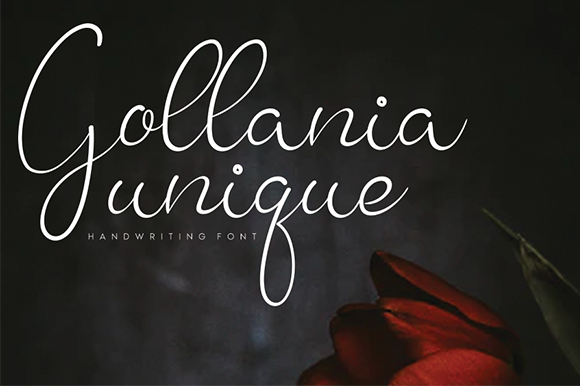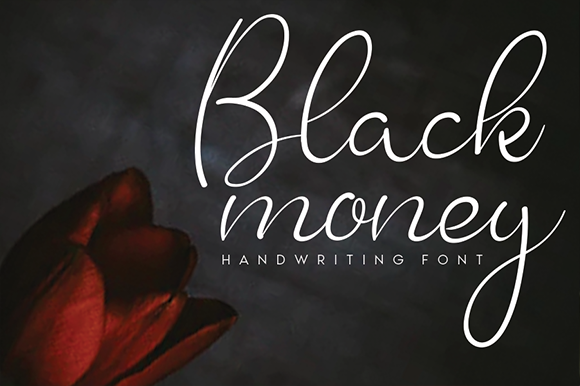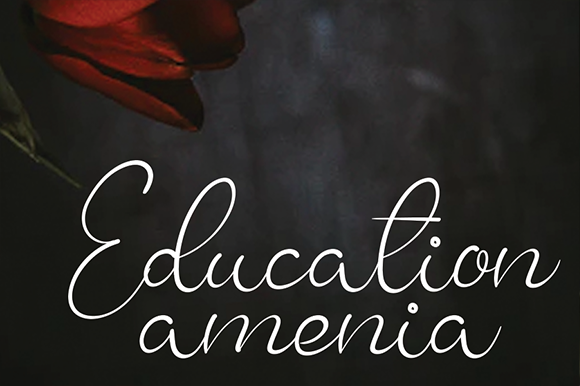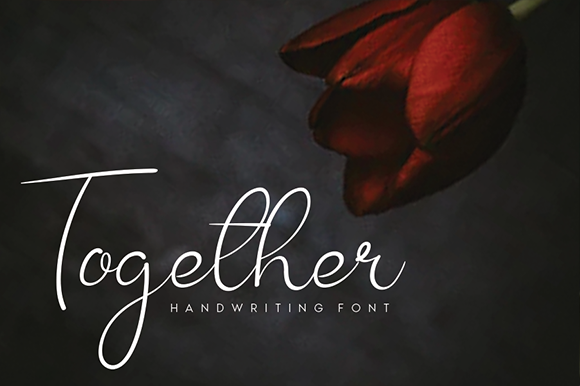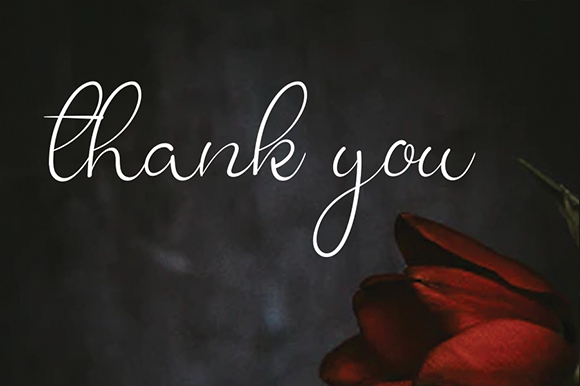
Gollania Font
About Gollania Font
Gollania is a sweet, delicate and round lettered handwritten font. Its classic calligraphy influences yet flowing and relaxed style makes this font incredibly fit for your most favorite events, be it wedding invitations, birthday cards, greeting cards and more.